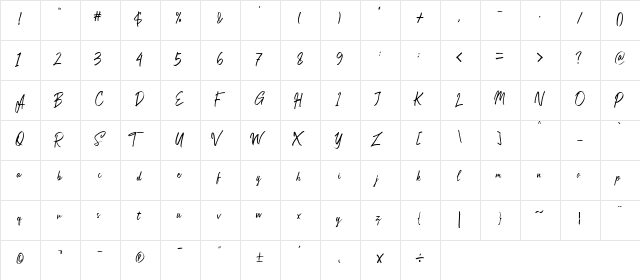
Copenhagen Regular Font Preview
Copenhagen Regular
Copenhagen Regular Font Details
Design Context for Copenhagen Typeface
Copenhagen is a composed and adaptable typeface that performs quietly and consistently across a wide range of design contexts.